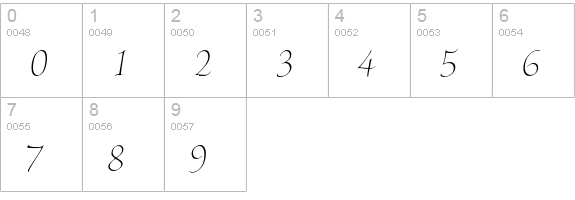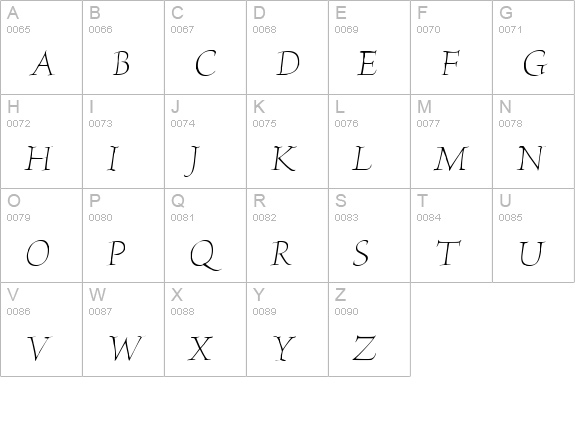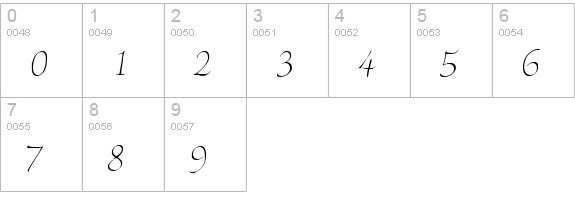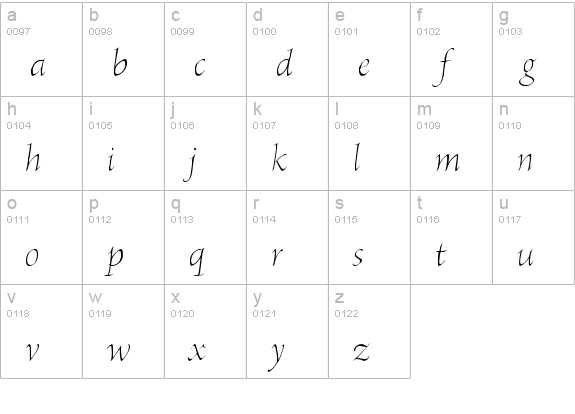
Brioso Pro Light Poster Italic is a refined, elegant, italic variant in the Brioso typeface family \xE2\x80\x94 well suited to elegant body text, refined sub-headings, and luxury branding.
Brioso Pro Light Poster Italic font is a sleek and elegant typeface that exudes sophistication and modernity. Its stylish italicized design adds a touch of flair to any project, making it perfect for posters, headlines, and other display purposes. The subtle curves and delicate details of this font give it a unique and eye-catching appearance that is sure to capture attention. Best of all, Brioso Pro Light Poster Italic font is available for free download at FontsMarket.com. This means you can easily access this premium font without any cost, making it a valuable addition to your design toolkit. Whether you're working on a professional project or a personal creative endeavor, Brioso Pro Light Poster Italic font is a versatile and visually appealing choice that will help elevate your designs to the next level. Download it today and see for yourself the impact this font can make on your work.